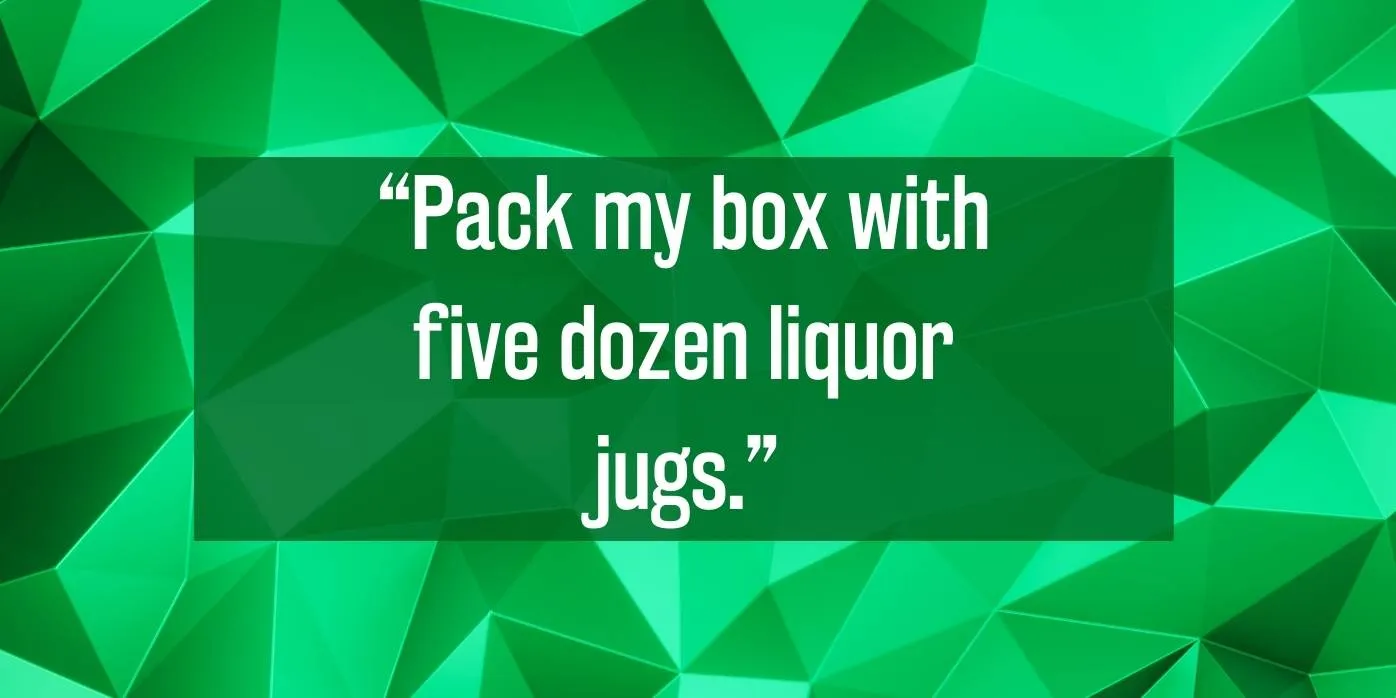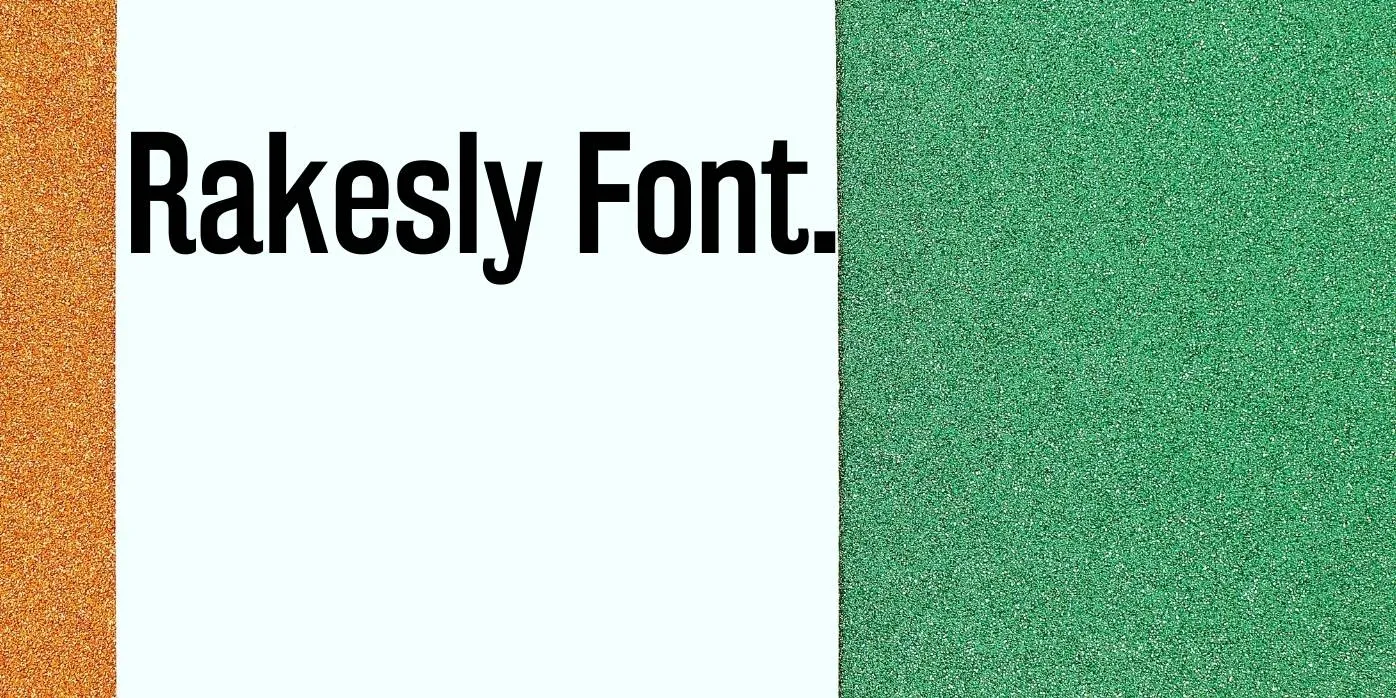
Rakesly Font
Rakesly Font was designed by the very famous Typodermic Fonts Foundry. It belongs to the Sans-Serif font family.  This font comes in two weights: regular and light. The regular weight is great for body text, while the lightweight is perfect for various designs. This awesome font is a modern font that is perfect for headlines and titles.
It has a modern and clean look that will make your text stand out. It includes Glyphs Panel, OpenType features, Ligatures, Stylistic Alternates, and Swashes. All of these features make it the perfect font for your next project. This typeface is best for others programs like Canva, Adobe, and others.